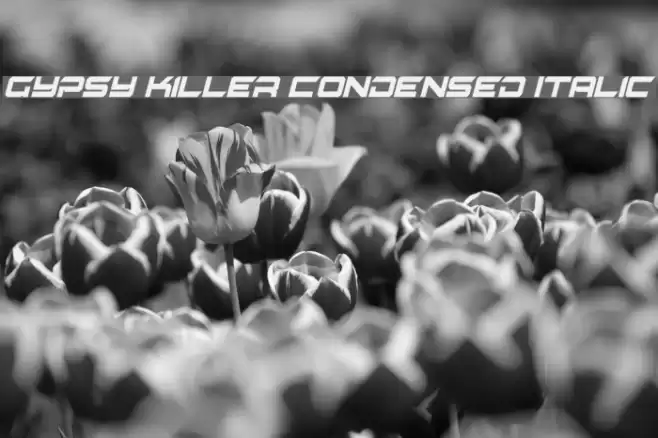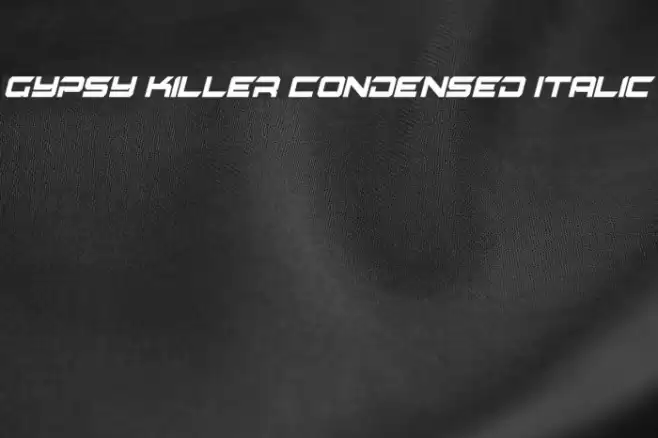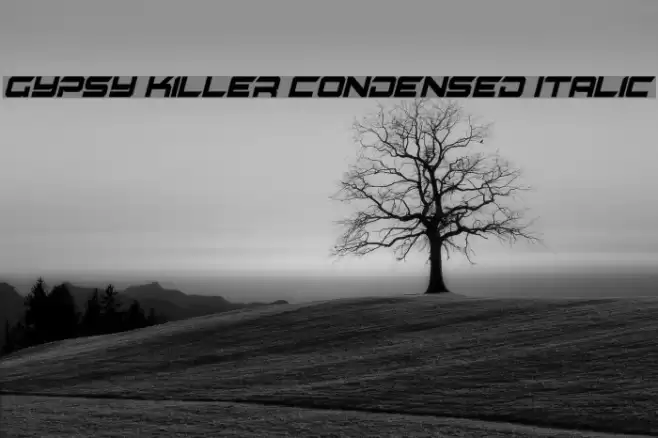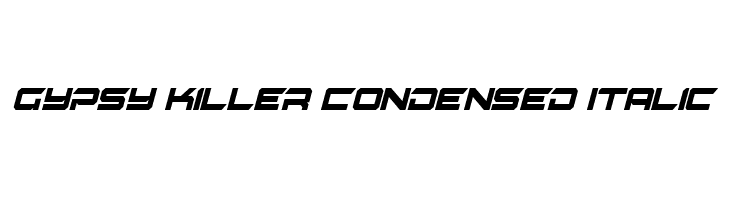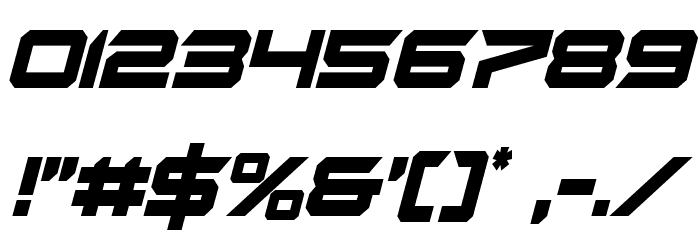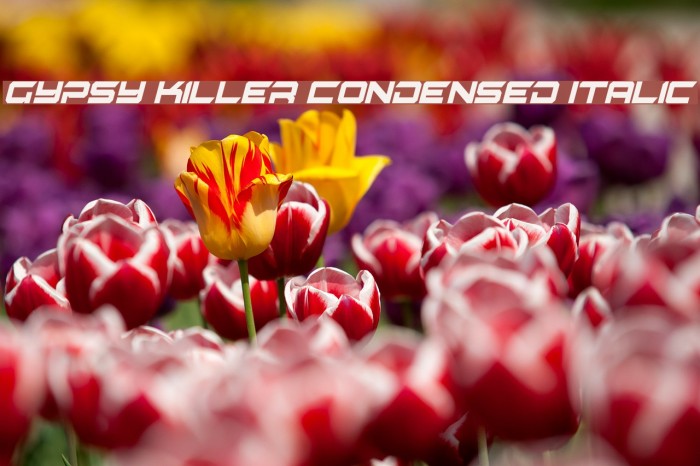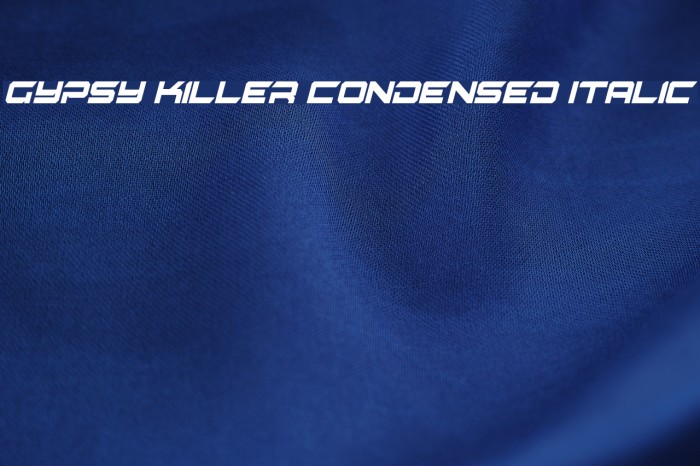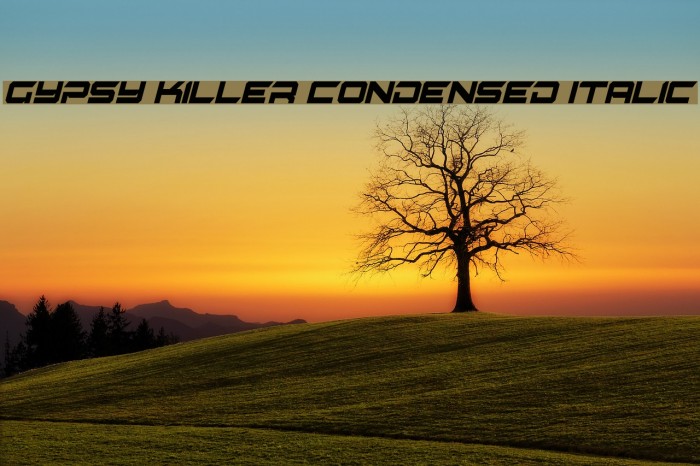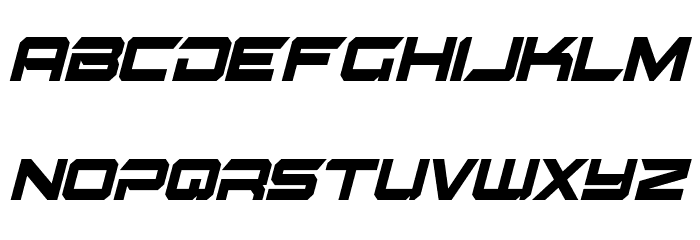
Gypsy Killer Condensed Italic Font
Gypsy Killer Condensed Italic Description
This font features a bold and dynamic design with a condensed and italicized style. The characters are angular and geometric, giving it a futuristic and edgy appearance. The sharp edges and slanted orientation create a sense of motion and speed, making it ideal for projects that require a modern and energetic feel. The uppercase letters are particularly striking, with a uniform height and consistent slant, while the numbers and special characters maintain the same bold and angular aesthetic. This font is perfect for creating impactful headlines, logos, and branding materials that demand attention.
A bold, condensed, and italicized font with a futuristic and dynamic design from Uncategorized fonts.
- Proposed Projects: Ideal for sports branding, tech company logos, dynamic posters, and modern advertising campaigns.